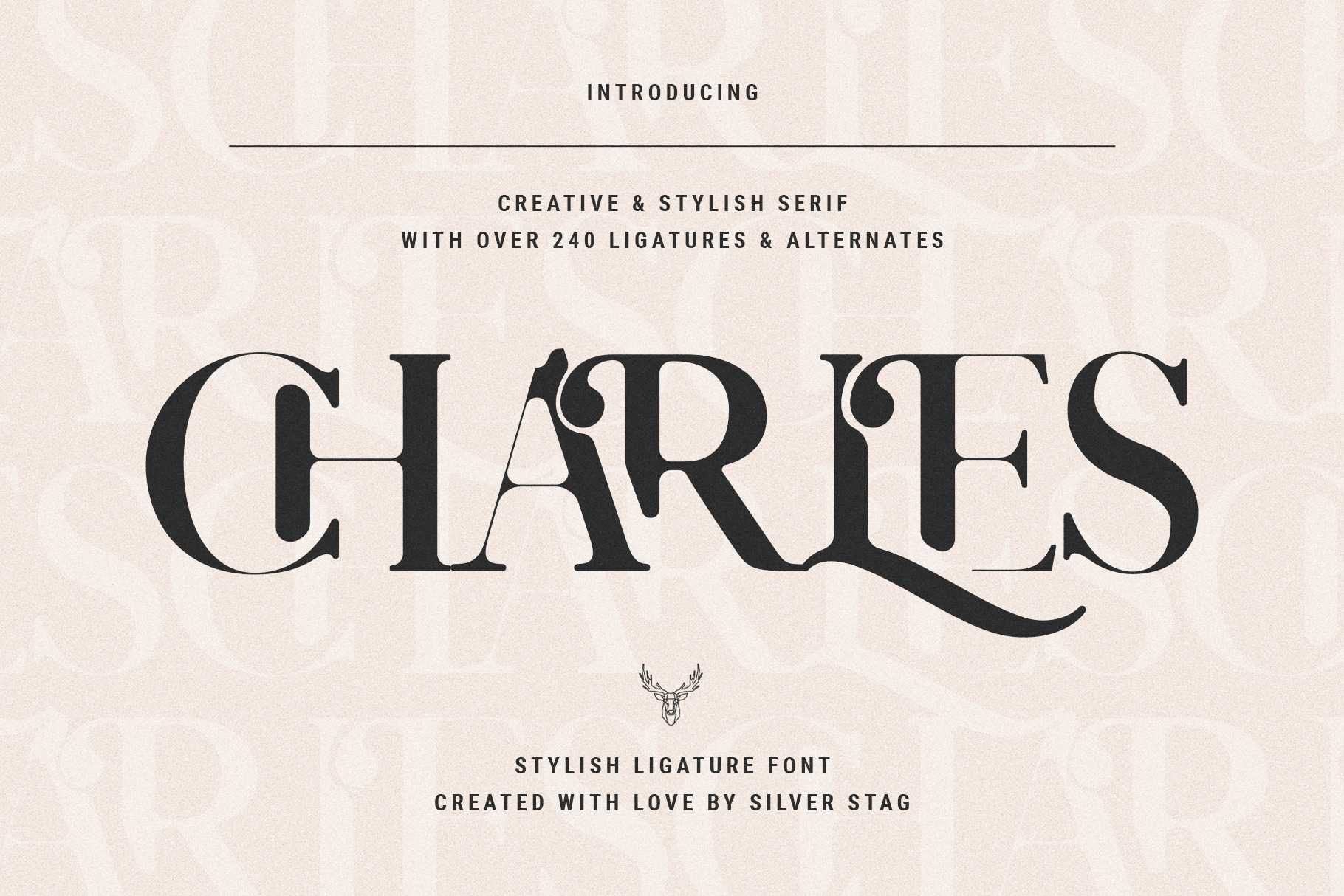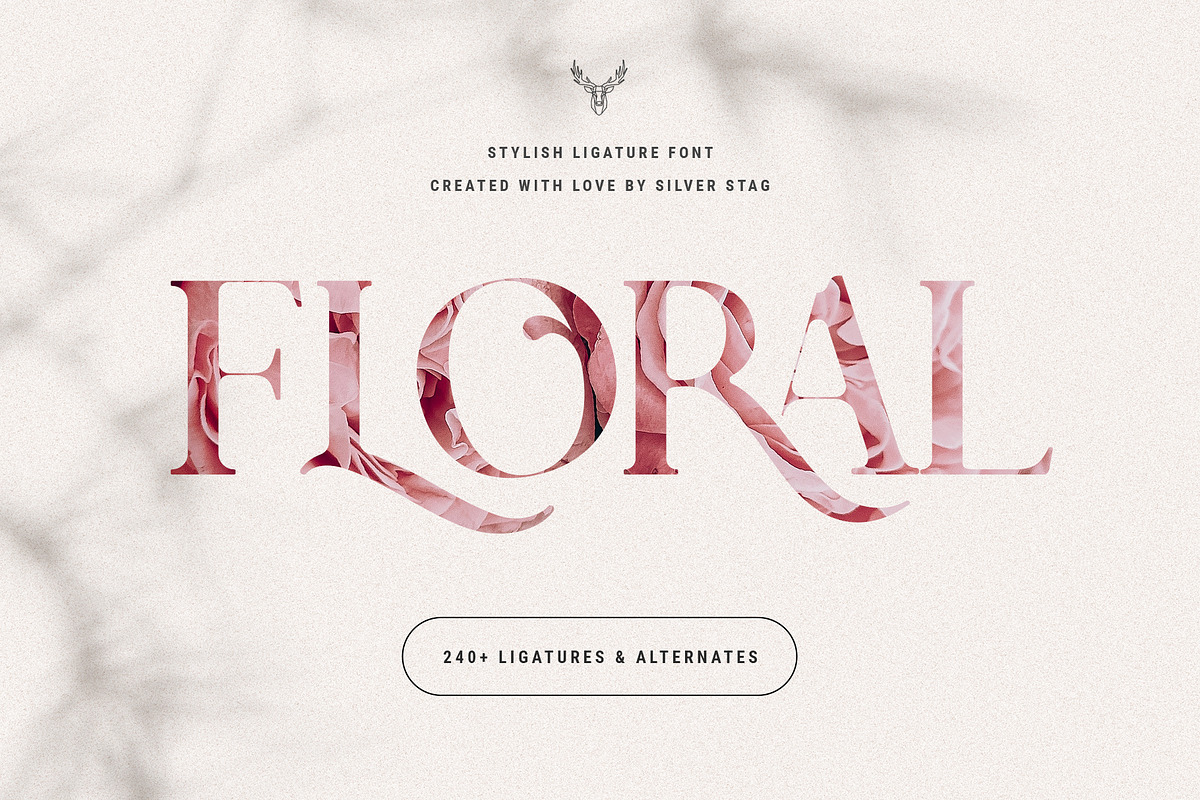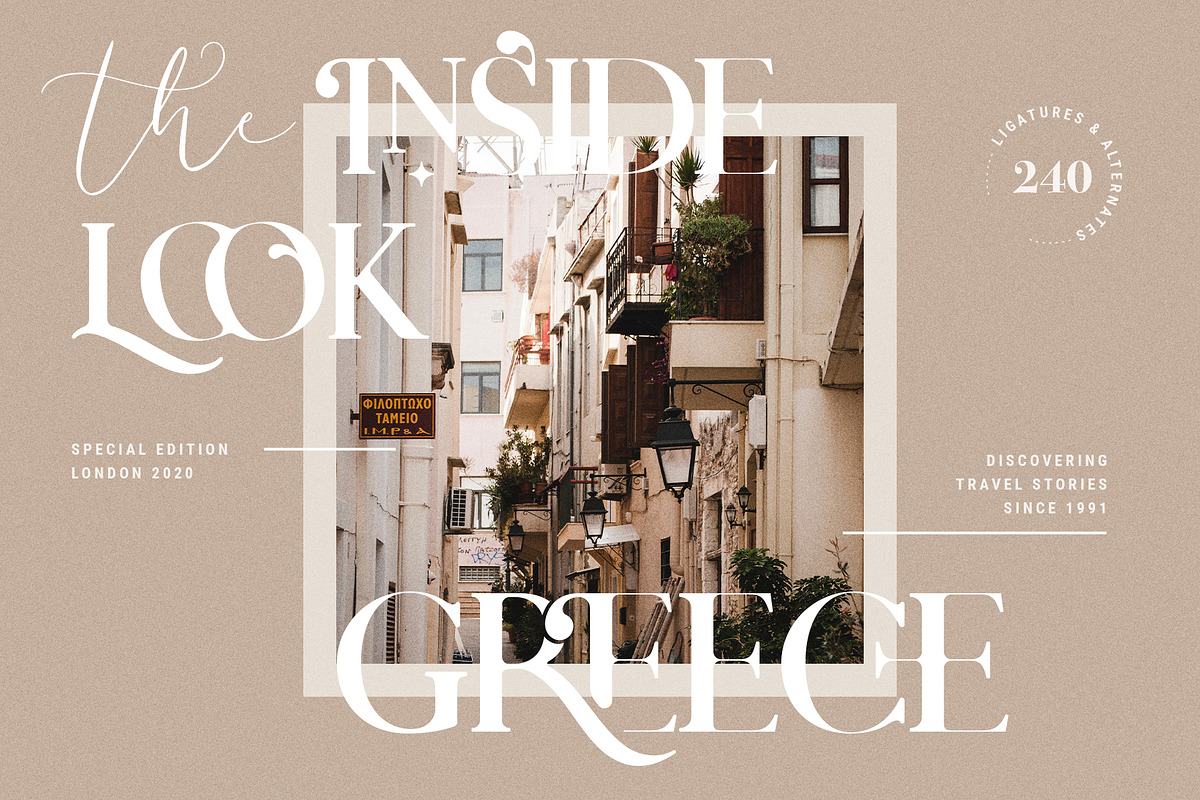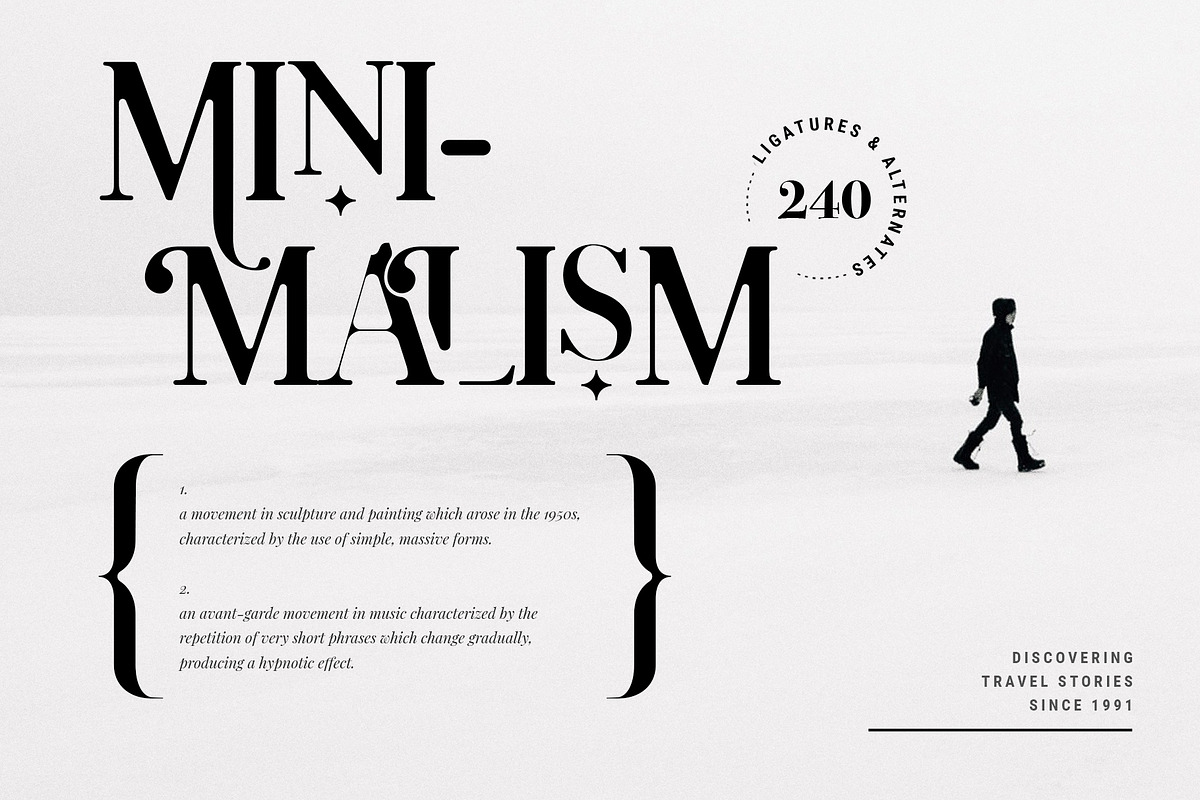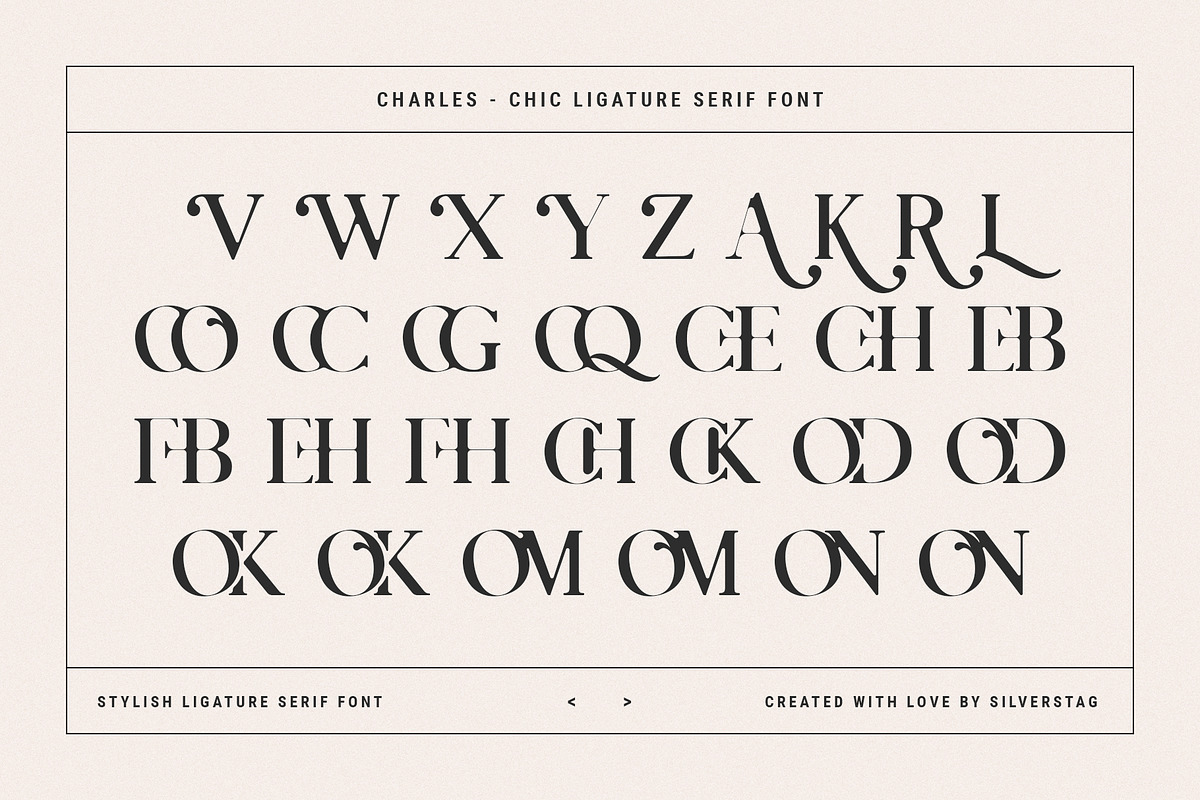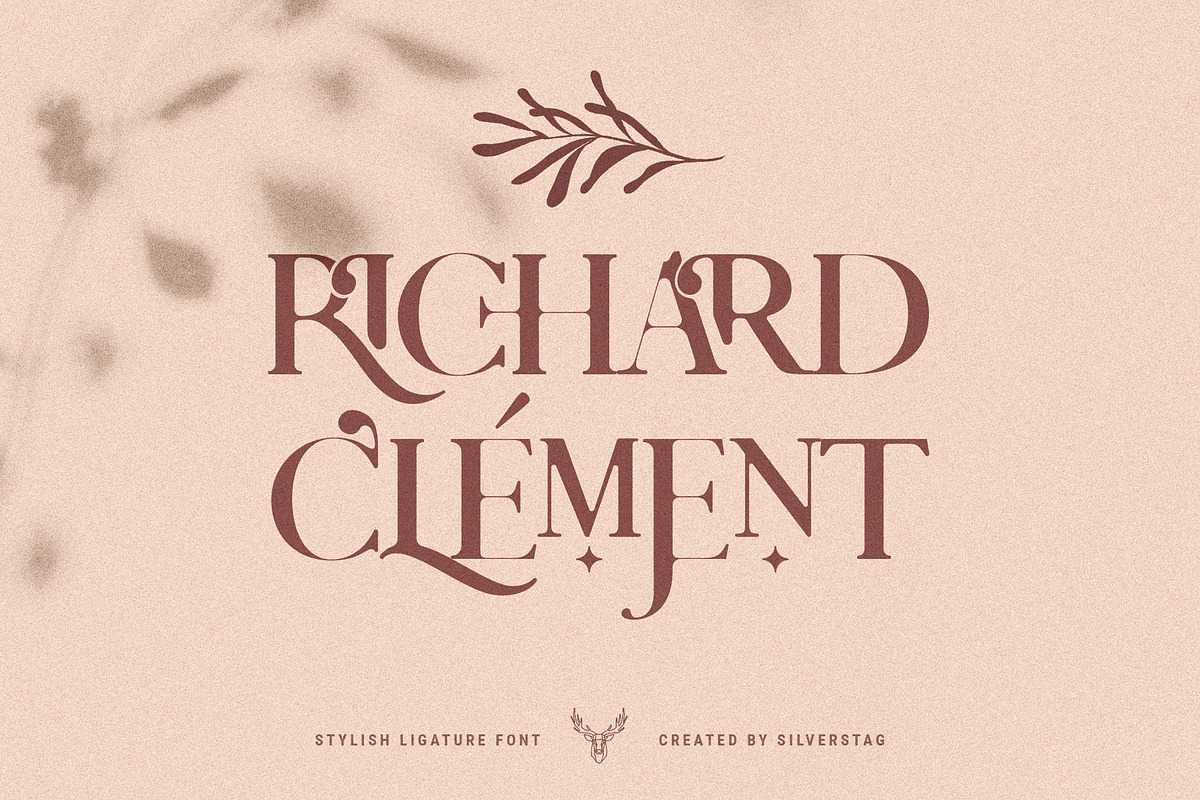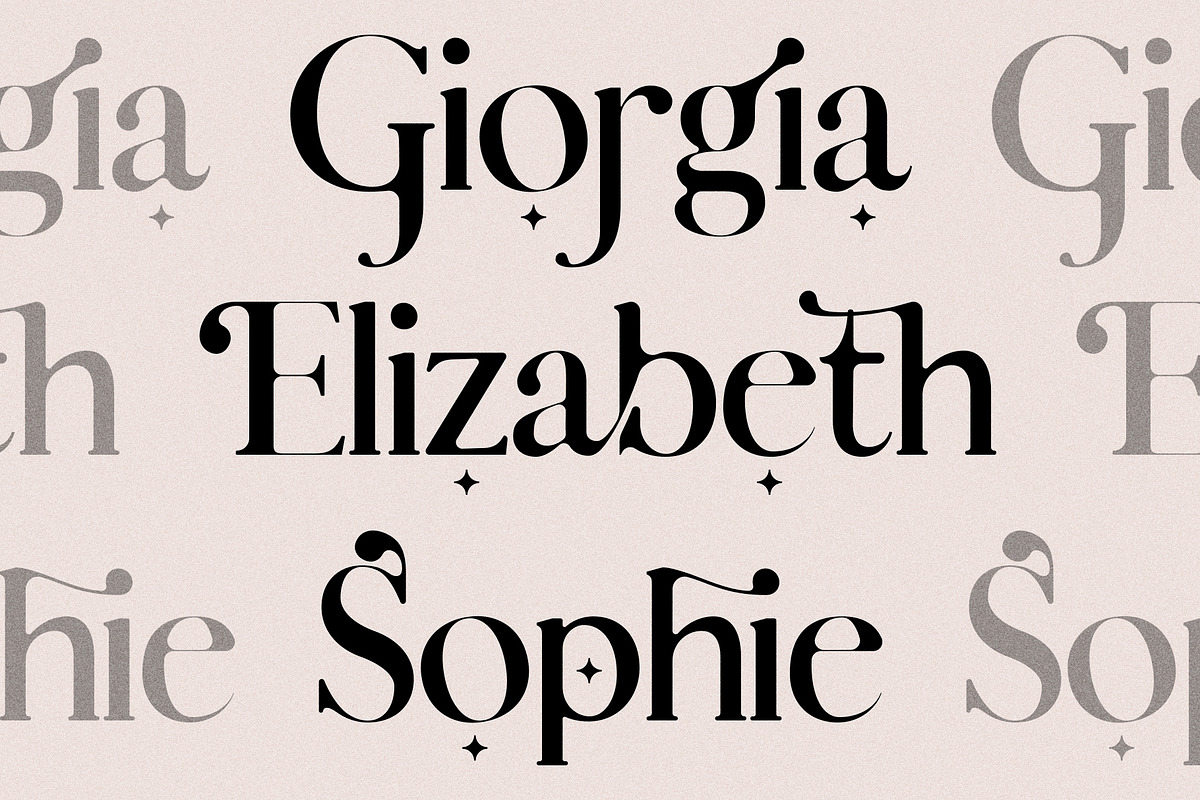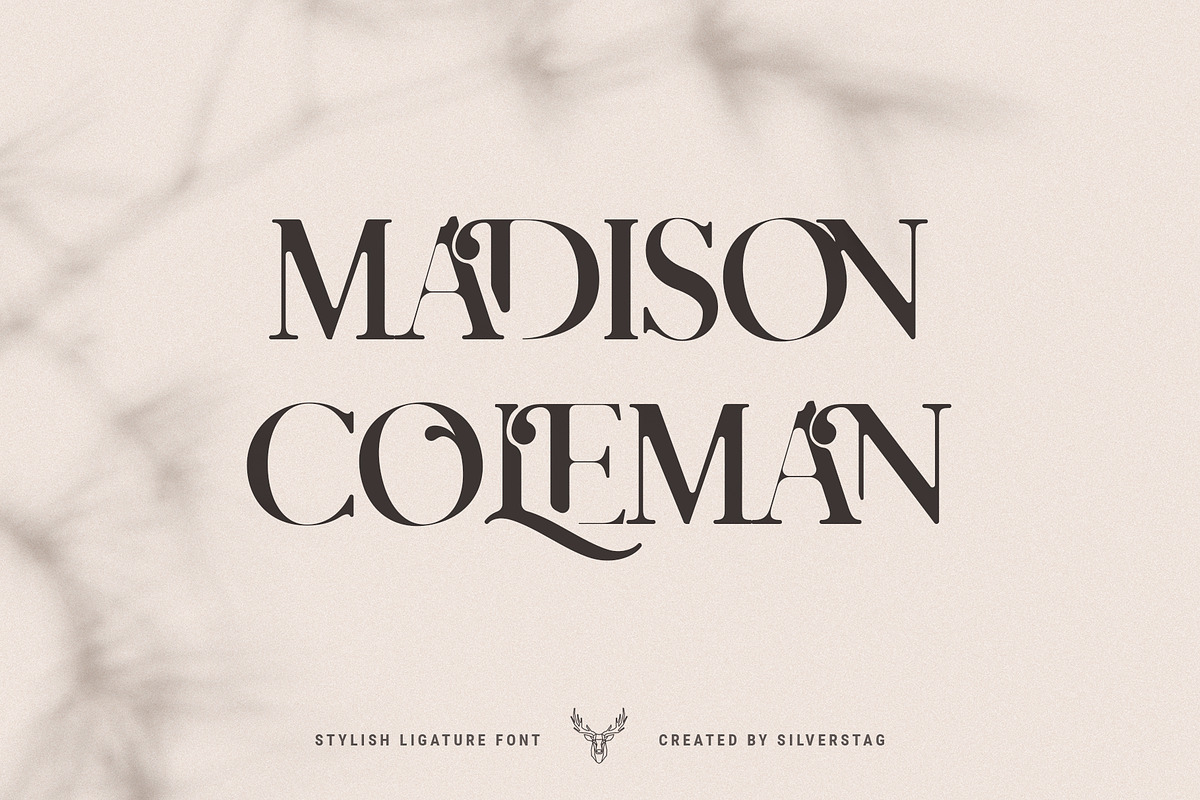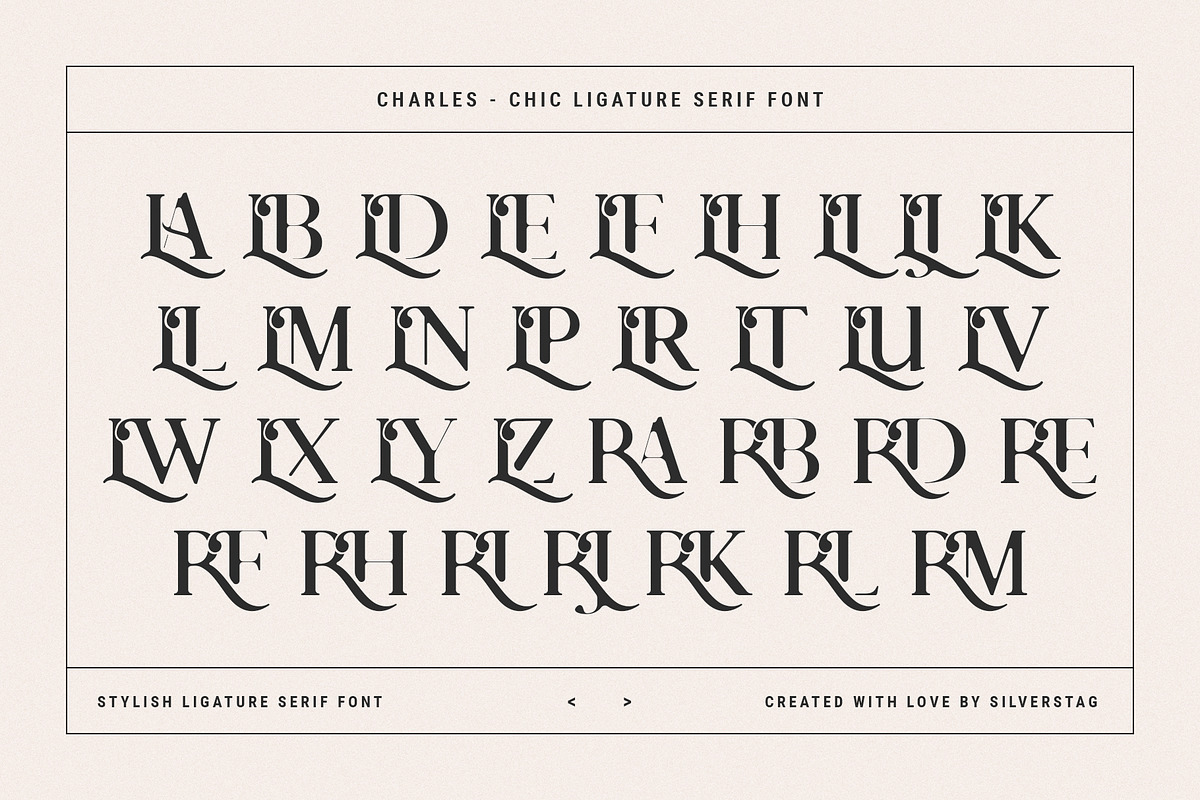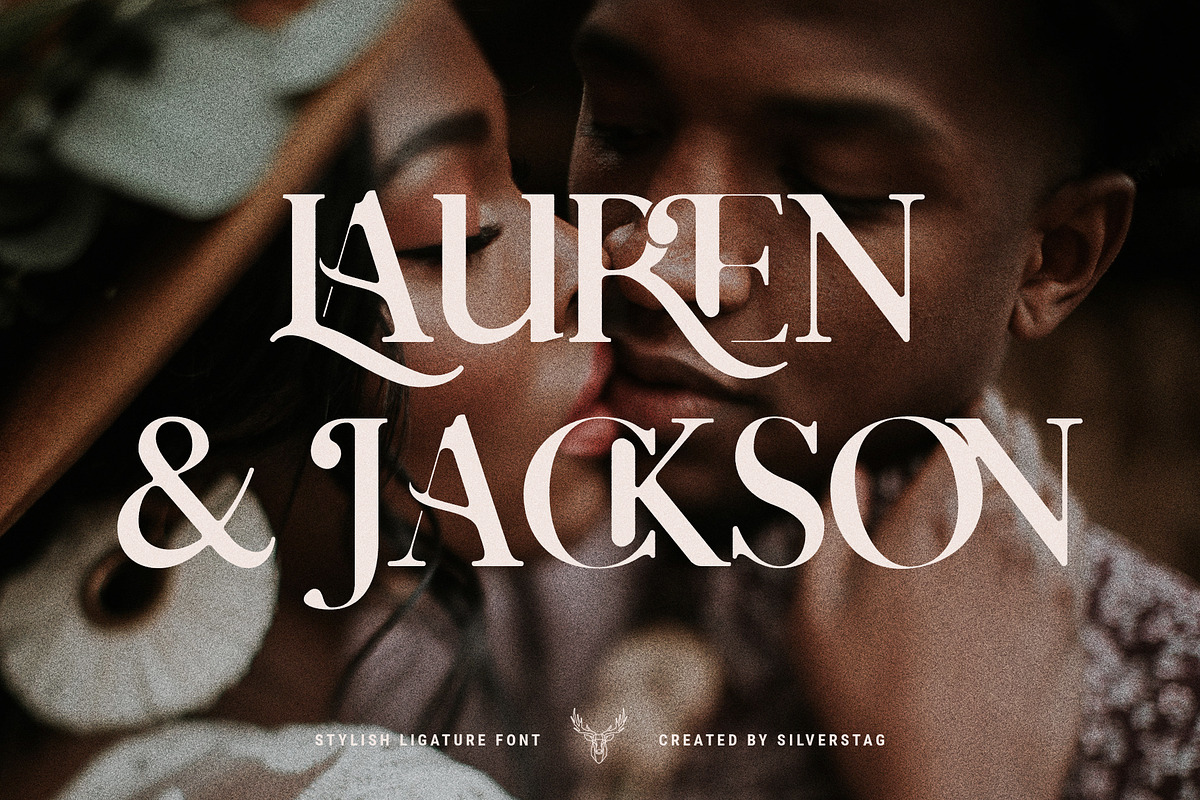
Charles - Chic Ligature Serif Font
Hey everyone, say HI to Charles, a brand new ligature serif font. I am really proud to offer you my new chic font that comes with over 240 ligatures and alternate letters. Each of the standard letters, ligatures, and alternates was handcrafted and made to fit other letters without exception. All letters are 100% unique with soft rounded edges that will give you a different look than any other serif font.
I invite you to check out all the preview images to see what can be done with this amazing ligature font. Whether you have a client that needs a new chic logo, or you're designing your social media posts. Maybe you're preparing your wedding mood board, stationery, invitations, Charles Ligature font is just perfect for all of that and much much more. Check out the photos I have prepared for you to see what you can do with it and happy creating!
- 240 Ligatures & Alternate letters
- Lowercase and Uppercase letters
The following letters are included: A À Á Â Ã Ä Å C Ç D Ð E È É Ê Ë I Ì Í Î Ï N Ñ O Ø Ò Ó Ô Õ Ö U Ù Ü Ú Û W Ẃ Ŵ ẄẀ Y Ý Ÿ Ỳ Ÿ Æ Œ ß Þ þ in uppercase and lowercase so Charles supports a huge number of languages.